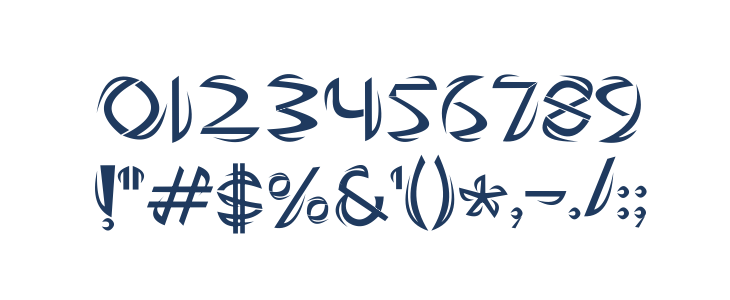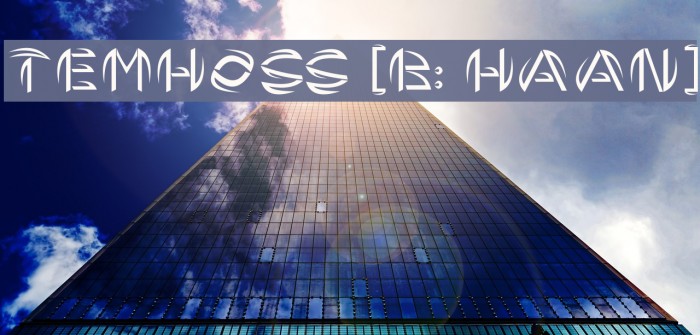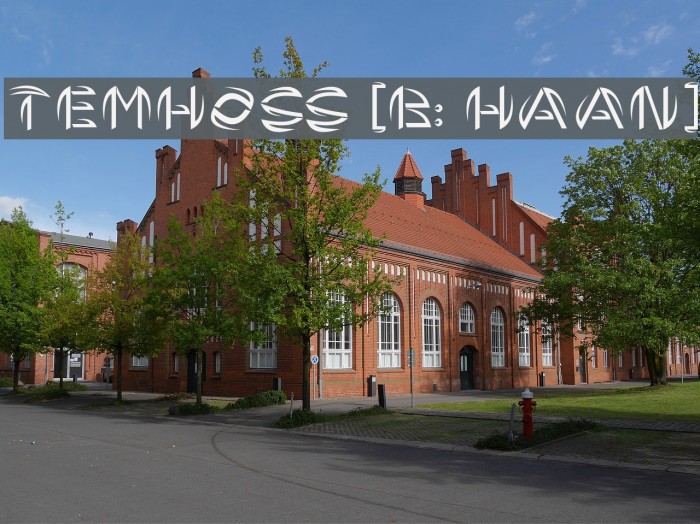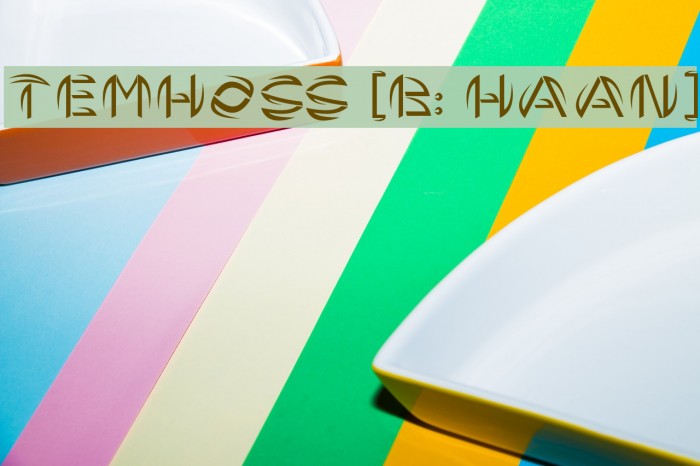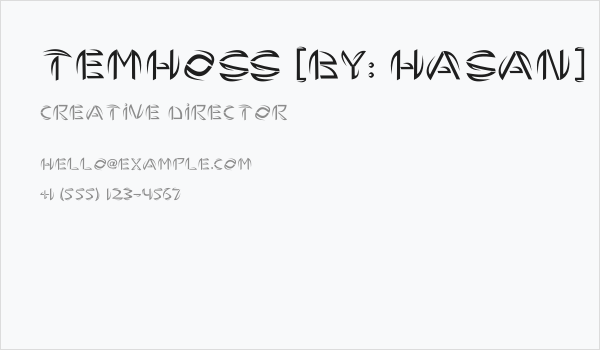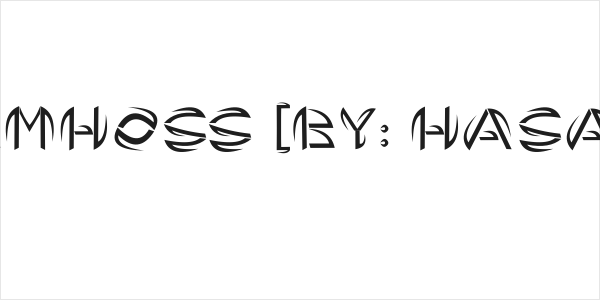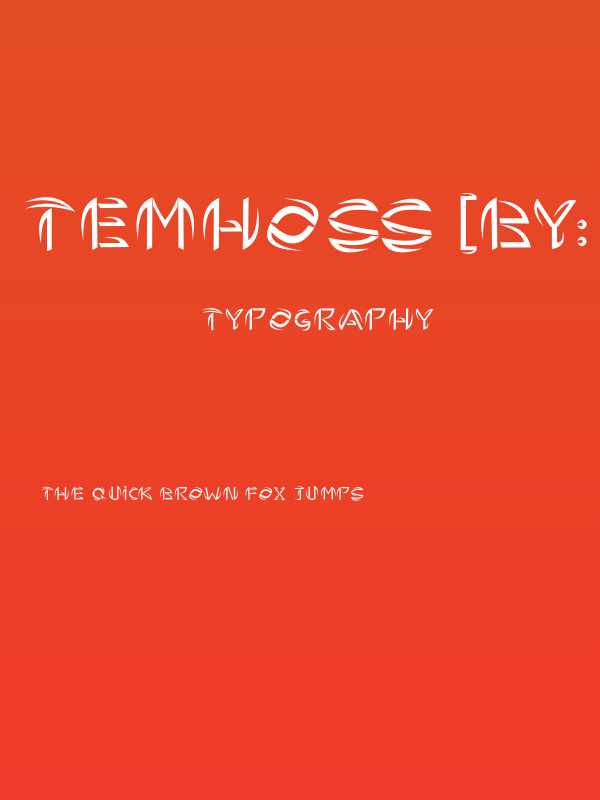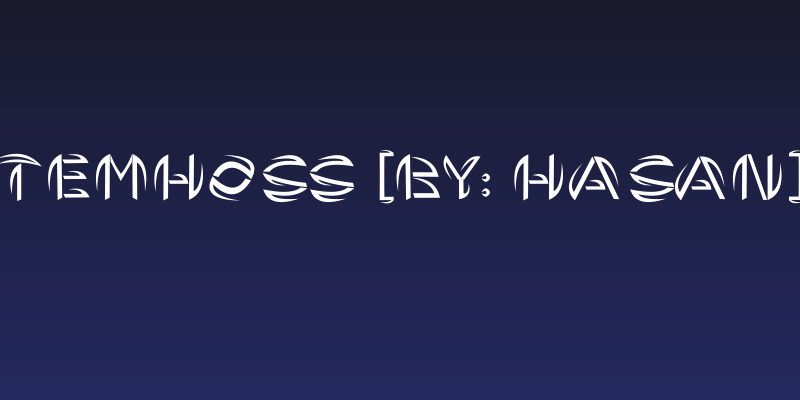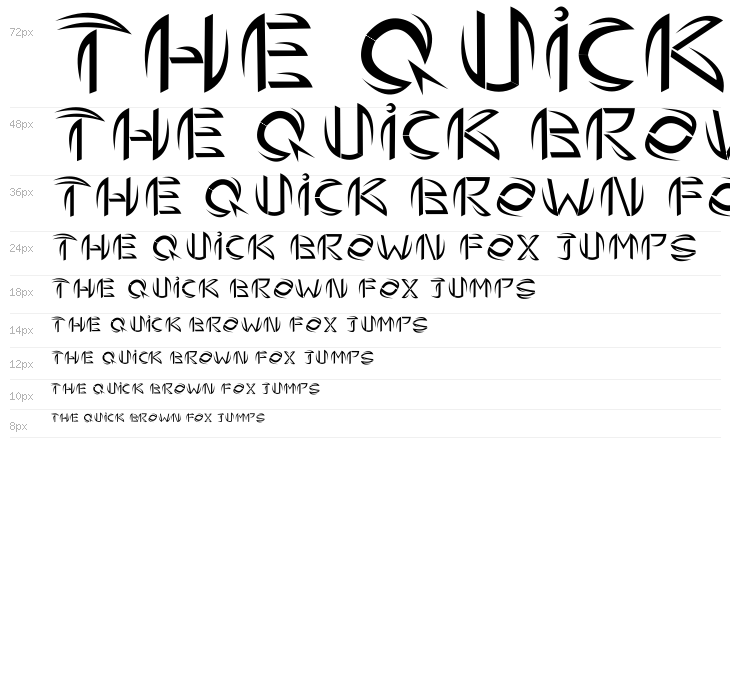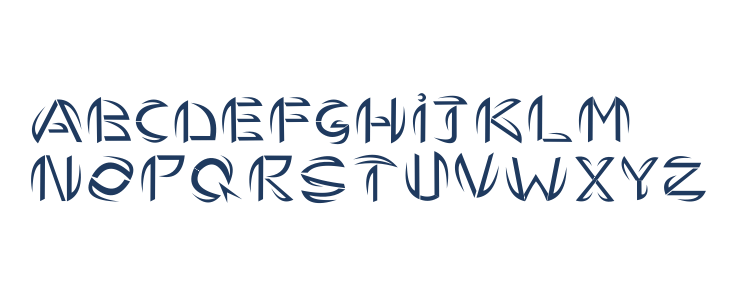
TEMHOSS [By: HAsAN] Font
TEMHOSS [By: HAsAN] Description
This font features a unique and artistic design with sharp, angular strokes and a futuristic feel. The characters are constructed with bold, geometric shapes that create a sense of movement and energy. The uppercase and lowercase letters maintain a consistent style, with a focus on symmetry and balance. The numbers and special characters are equally stylized, making them stand out with their dynamic forms. This font is ideal for projects that require a modern and edgy aesthetic, such as branding, posters, and digital media.
| Proposed Projects | Ideal for branding, posters, digital media, and any project requiring a modern, edgy aesthetic. |